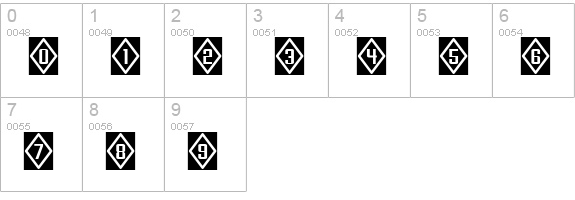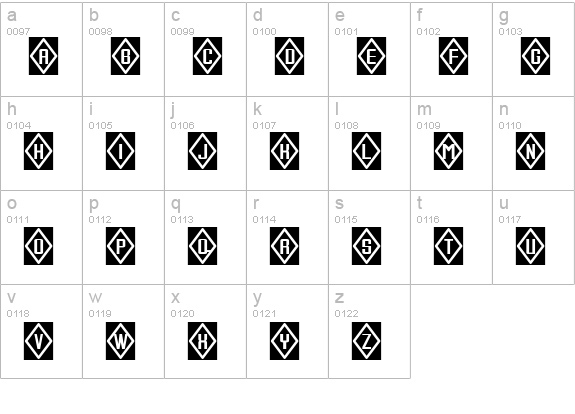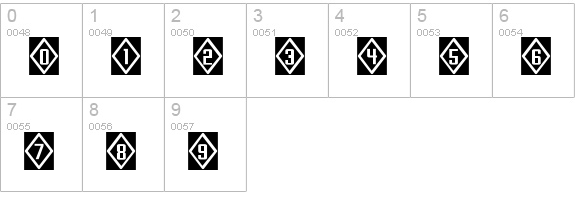
Icecube Font Details
Introducing Icecube, the cool and refreshing font that will add a touch of icy elegance to your designs. This unique typeface captures the essence of frozen beauty, with its sleek lines and sharp angles reminiscent of glistening ice crystals. Icecube is not only visually striking but also incredibly versatile. Whether you're designing a logo for an arctic expedition or creating winter-themed invitations, this font will effortlessly convey a sense of chilly sophistication. Its clean and modern design ensures legibility across various platforms, making it perfect for both print and digital projects. But the best part? Icecube is absolutely free! That's right, you can download this stunning font at FontsMarket.com without spending a dime. We believe in making high-quality design resources accessible to everyone, and Icecube is no exception. With just a few clicks, you can have this font in your collection, ready to elevate your creative endeavors. So why wait? Embrace the frosty allure of Icecube and let your designs shine with its crisp and captivating aesthetic. Download it now, exclusively at FontsMarket.com, and embark on a journey of limitless creative possibilities.